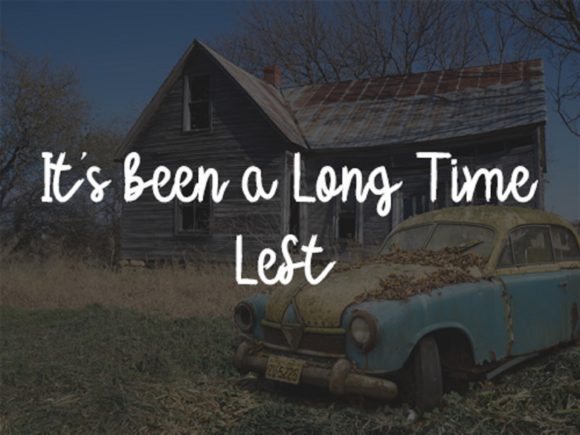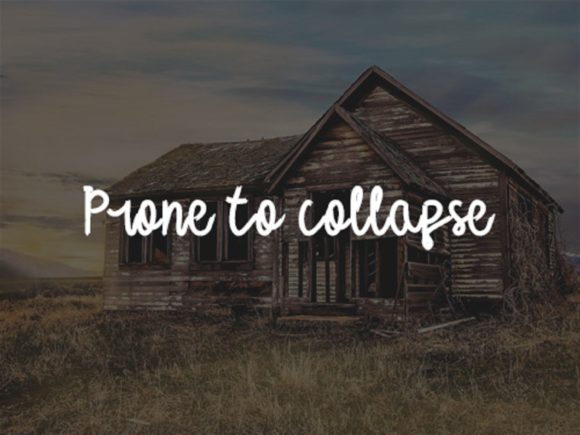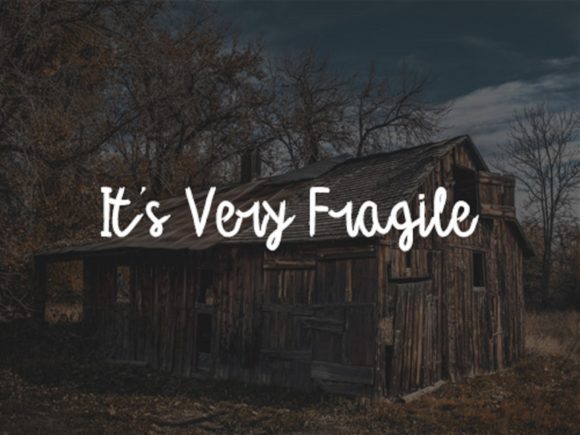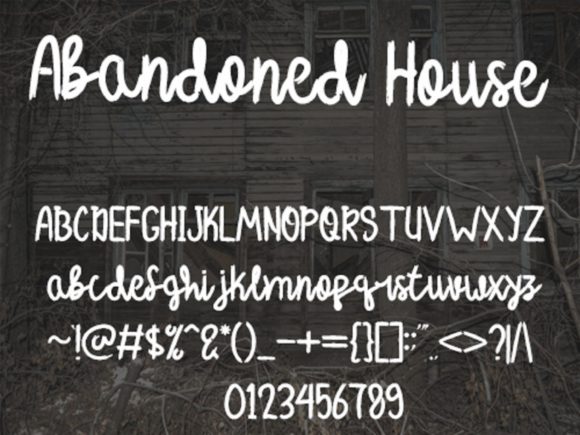
Uncover the Hidden Charm of Abandoned Houses Font
Have you ever stumbled upon an old, forgotten house while exploring the woods or a deserted town? The mysterious and nostalgic atmosphere that comes with it is not only captivating but also a treasure trove of inspiration for designers. As you imagine the stories and memories hidden within those walls, your creative juices start flowing, and the urge to create something unique and meaningful becomes overwhelming.
That’s where Abandoned Houses Font comes in – a sweet and friendly brushed handwritten font that embodies the essence of those forgotten homes. This font is not just a tool for designers, but a key to unlocking the hidden charm of any design. Its natural and unique style makes it incredibly fitting to a large pool of designs, limited only by your imagination.
Abandoned Houses Font Key Features
- Font Family: Abandoned Houses Font is a unique display font designed to evoke a sense of nostalgia and abandonment.
- Size: The font family includes 6 weights, ranging from Thin to Heavy, providing flexibility for various design needs.
- Unique Characteristics: Abandoned Houses Font features distressed textures, worn-out edges, and subtle imperfections, giving it a weathered, vintage look.
Abandoned Houses Font Review
First off, I love the unique theme of this font – it’s like a time capsule to the past. The designer has successfully captured the essence of abandoned houses, which is both fascinating and eerie at the same time. ✨
The font’s distressed texture and faded look are quite impressive. It’s perfect for designers who want to create a sense of nostalgia or retro feel in their projects. The font also comes with a set of alternate characters, which is a nice touch. ✨
However, there are a few limitations to this font. For one, it may not be suitable for body text due to its distressed look, which can make it difficult to read. Additionally, the font’s design may not be ideal for titles or headings, as it may not have enough contrast. ⚠️
Lastly, I’d like to see more character variations in the font, especially in terms of punctuation and numbers. This would make the font even more versatile and useful for designers. ⚠️
- Best suited for titles, headings, and decorative text
The Abandoned Houses Font is commonly used in designs that require a distressed or vintage effect, such as:
- Graphic novels and comics
- Photography and photo editing
- Video game design and development